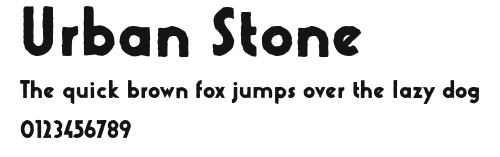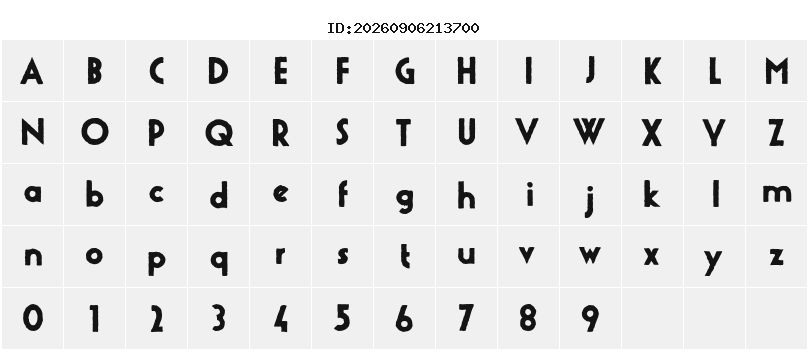
Urban Stone Preview
• Font Name: Urban Stone
• Designer: Roland Huse
About Urban Stone.otf
Urban Stone.otf is a modern, elegant sans-serif font designed for ultimate readability and visual harmony. Perfect for branding, headlines, web design, and print materials.